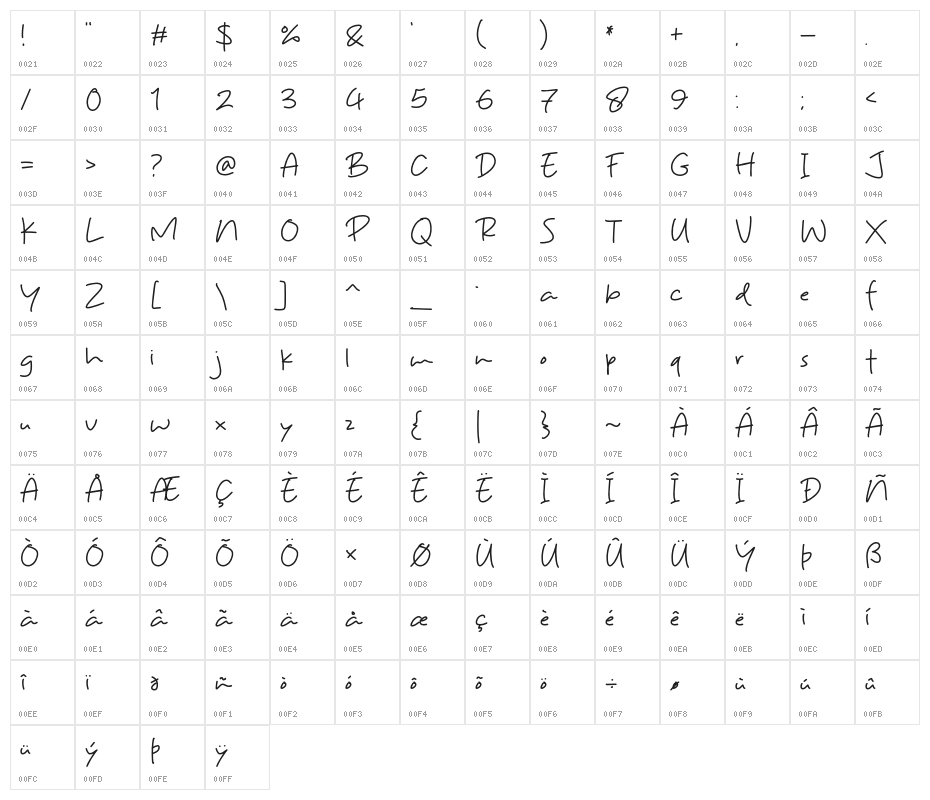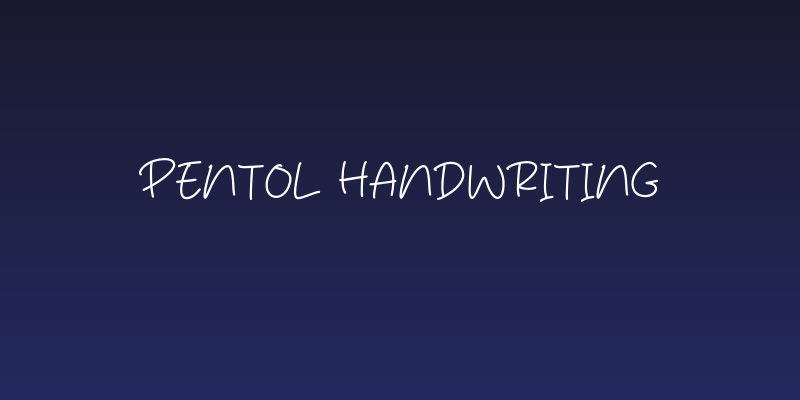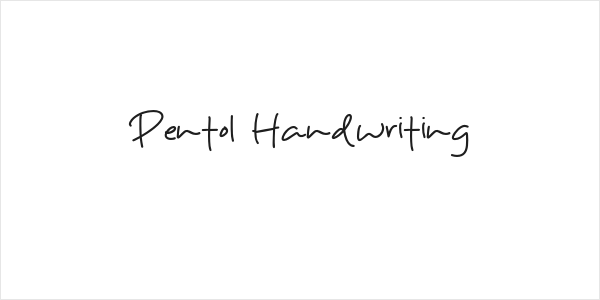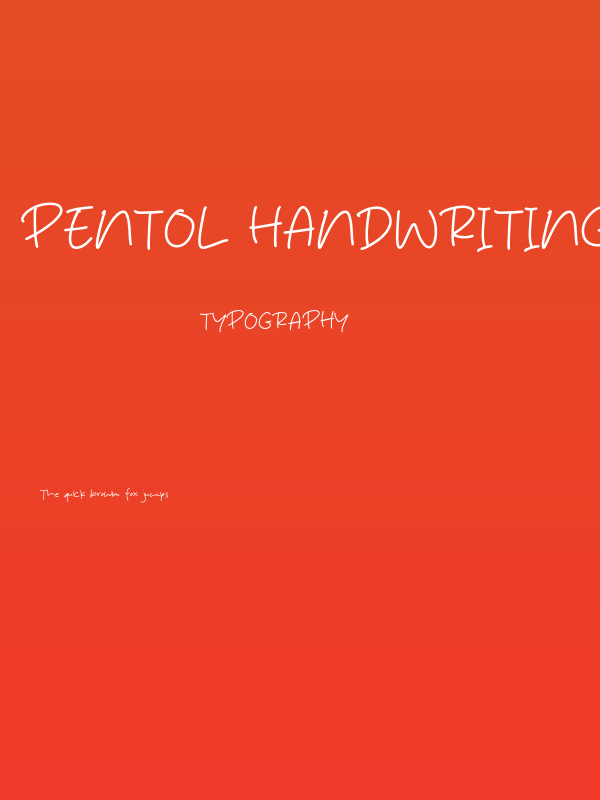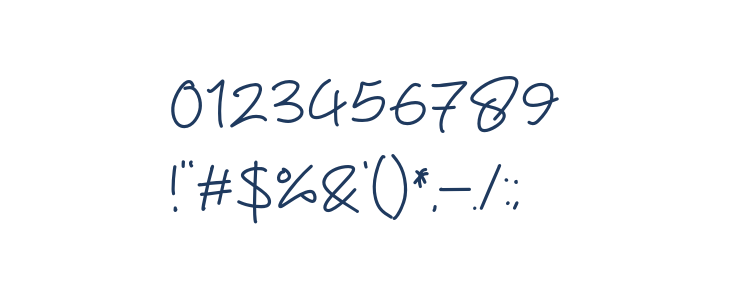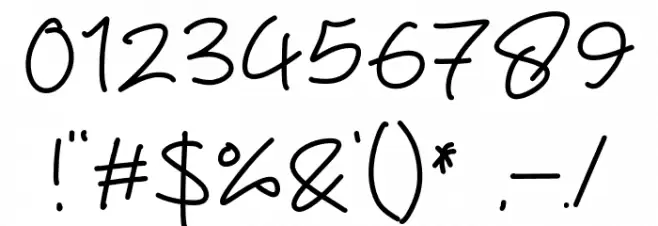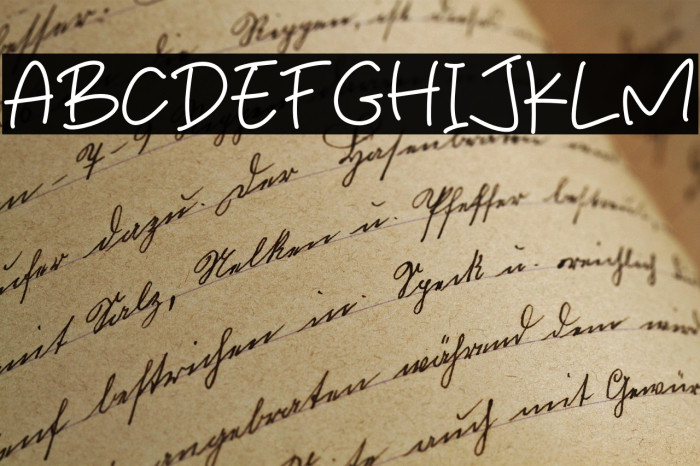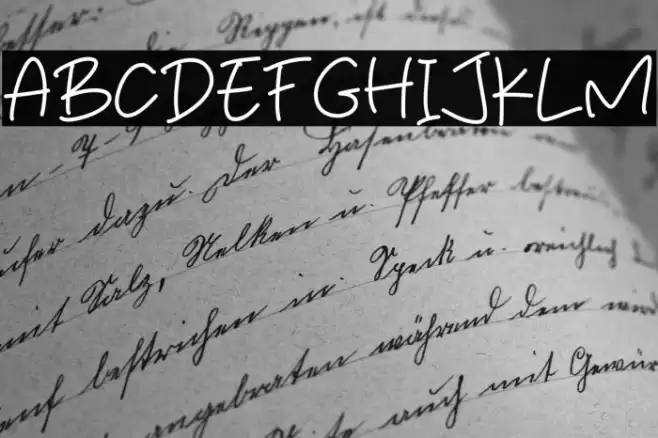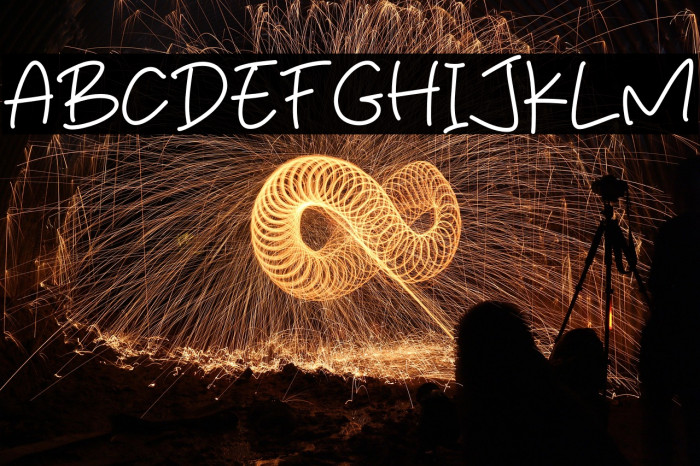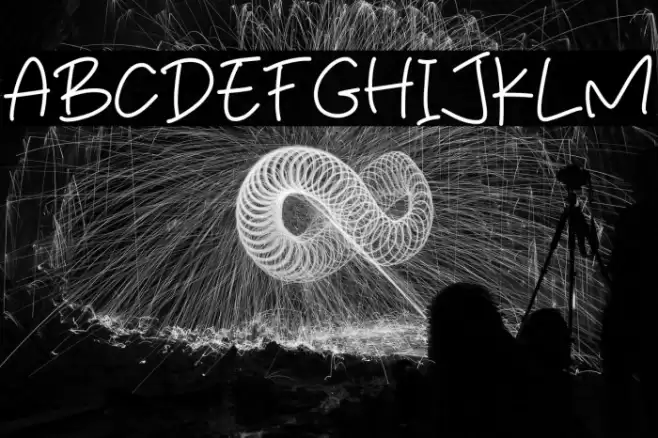
Pentol Handwriting Font
Pentol Handwriting Description
This font exudes a casual and personal touch, reminiscent of natural handwriting. The characters are fluid and slightly irregular, giving them an authentic, hand-drawn appearance. The uppercase and lowercase letters maintain a consistent style, with smooth curves and a playful demeanor. Numbers and special characters are crafted with the same informal flair, making them blend seamlessly with the alphabet. The overall look is approachable and friendly, ideal for projects that require a personal or informal tone.
| Overall Style | Casual, Playful |
| Use Case | Headlines, Informal text, Personal notes |
| Proposed Projects | Ideal for personal notes, invitations, greeting cards, and informal branding projects. |